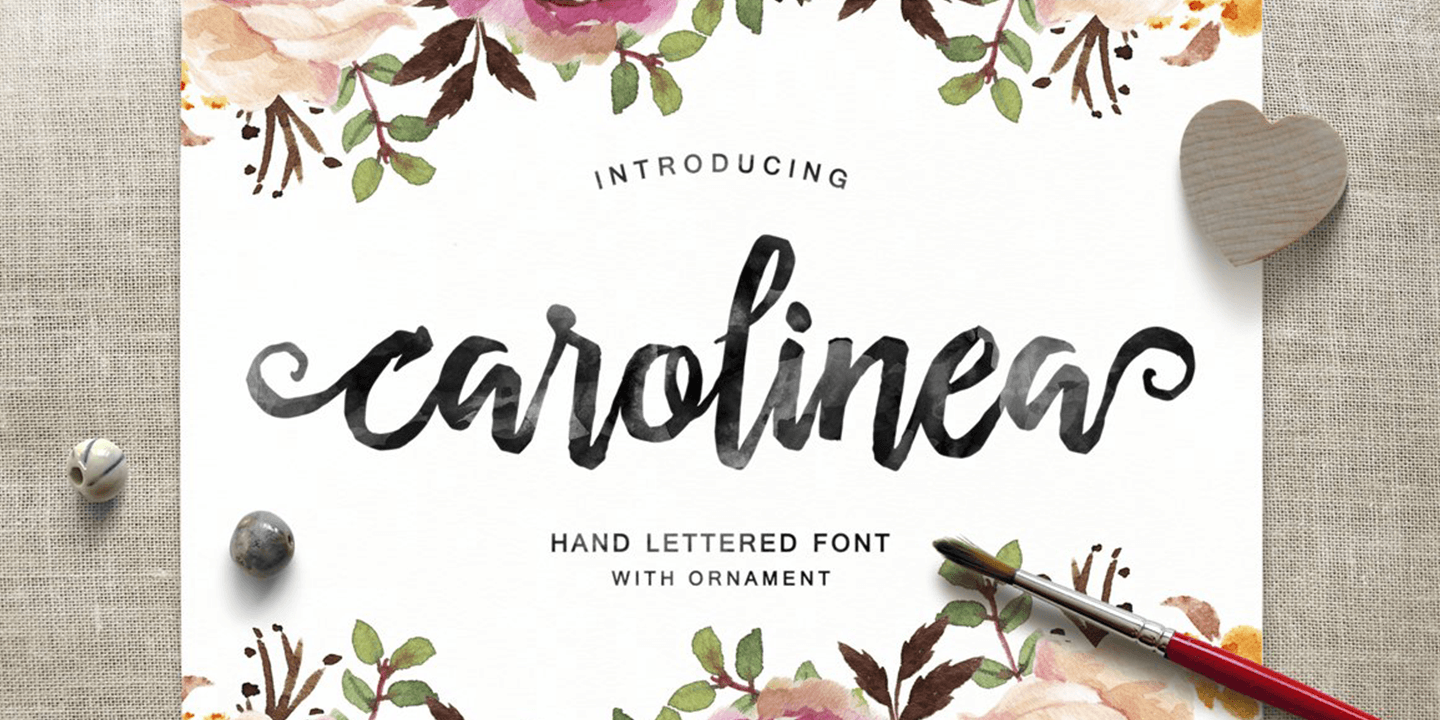
About Carolinea
Carolinea is a hand lettered script fonts, using brush & ink combines a style brush calligraphy, irregular baseline, a rough edges, bold and organic. Carolinea features 235+ glyphs and 63 alternate characters. including initial and terminal letters,…